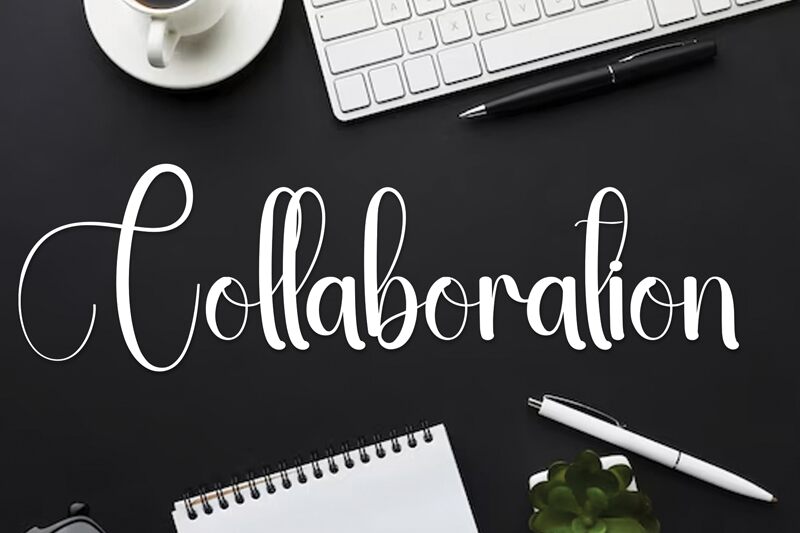
Collaboration
Collaboration, a captivating calligraphic font crafted by Andi Moz, emanates a warm and friendly aesthetic. This handwritten display font boasts a delightful, organic flow, with gently undulating strokes that exude a sense of playfulness and charm. The script-like appearance and the subtle variations in line thickness lend a touch of authenticity, creating a visually appealing and inviting typography.
This versatile font is well-suited for a variety of design applications, from wedding invitations and greeting cards to branding and packaging. Its playful nature and whimsical charm make it an ideal choice for projects that require a touch of personality and a personal touch, allowing designers to infuse their creations with a sense of warmth and approachability.